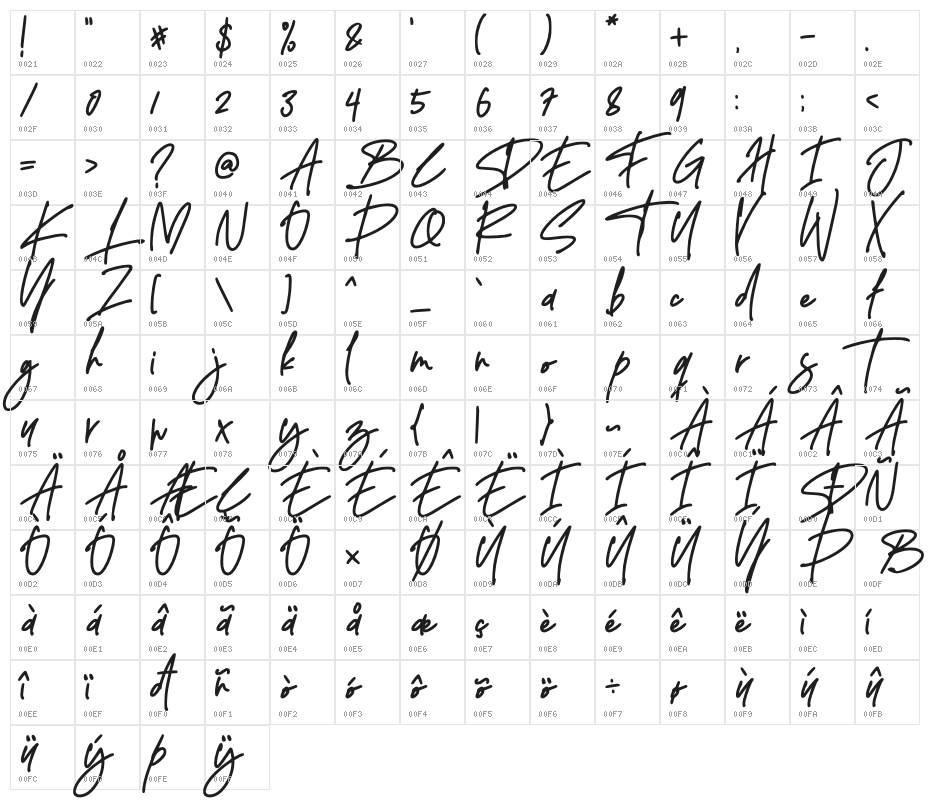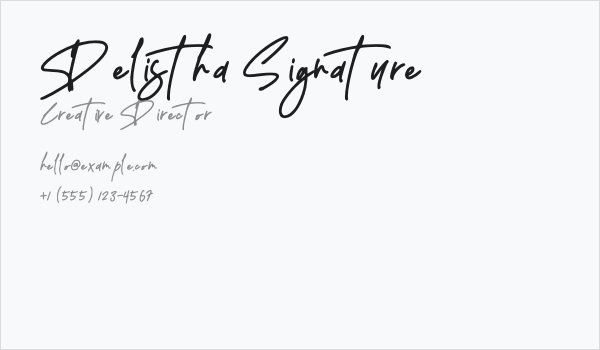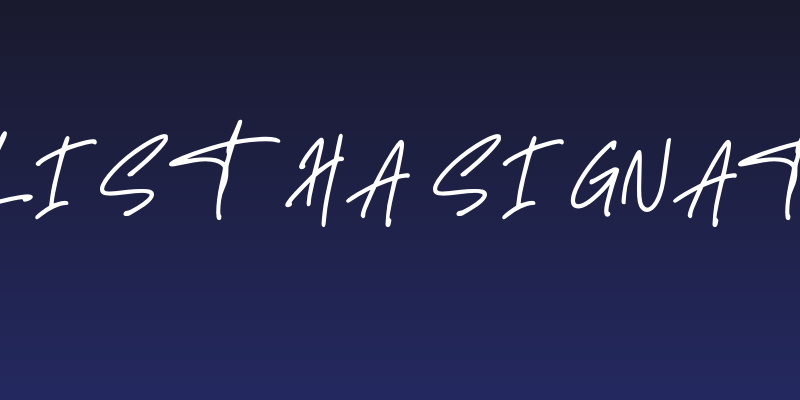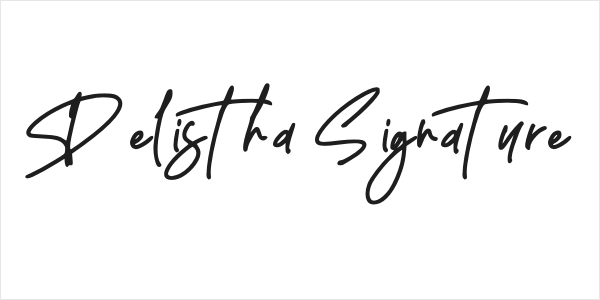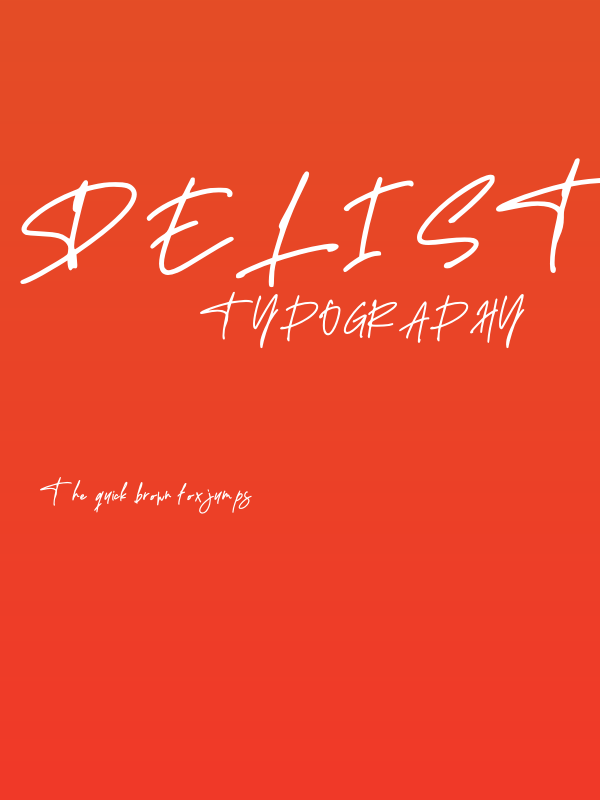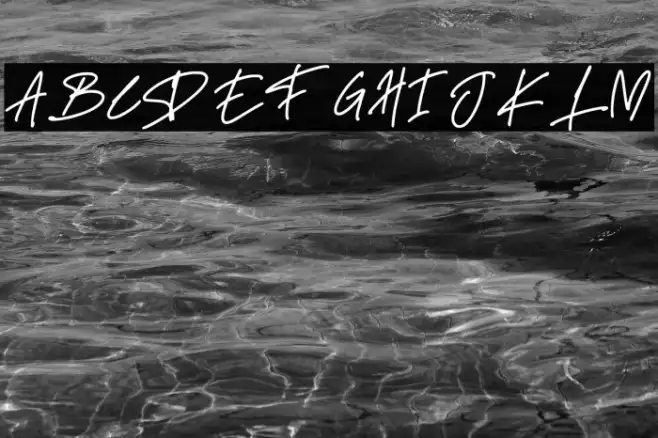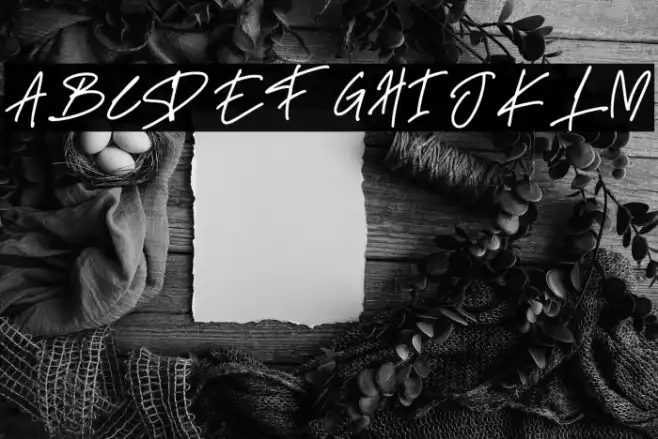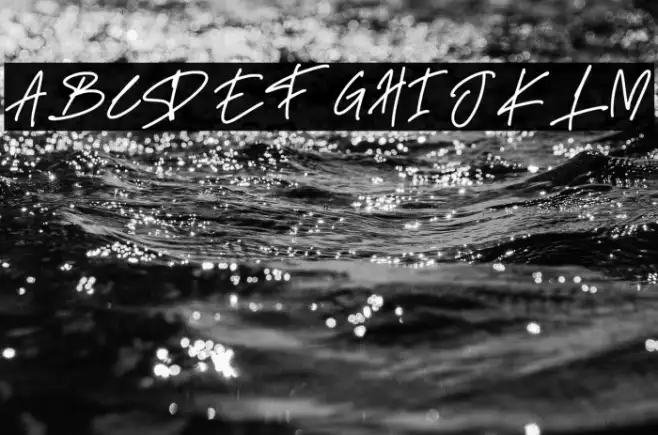
Delistha Signature Font
Delistha Signature Description
This font exudes a dynamic and expressive handwritten style, characterized by its fluid and cursive strokes. The uppercase letters are elegantly slanted, with a consistent flow that mimics natural handwriting. The lowercase letters maintain a similar fluidity, with some characters featuring unique loops and swashes that add a personal touch. The numerals are distinct yet harmonize well with the overall style, maintaining the same handwritten aesthetic. Special characters are crafted with the same attention to detail, ensuring they blend seamlessly with the rest of the font. This font's organic and personal feel makes it ideal for projects that require a touch of authenticity and creativity.
| Proposed Projects | Ideal for personal branding, invitations, greeting cards, and creative projects that require a personal touch. |